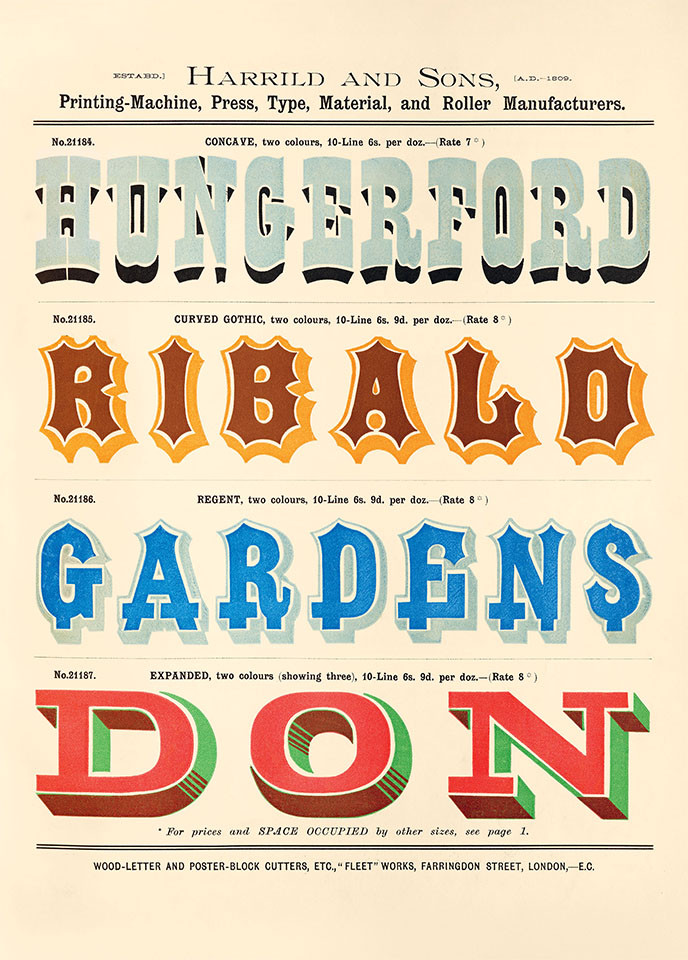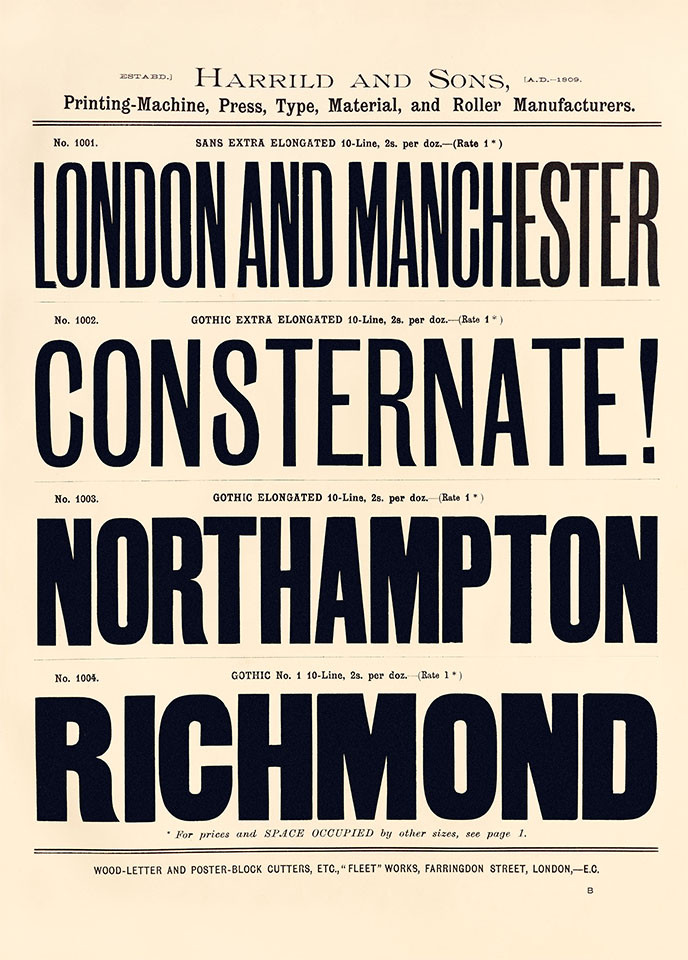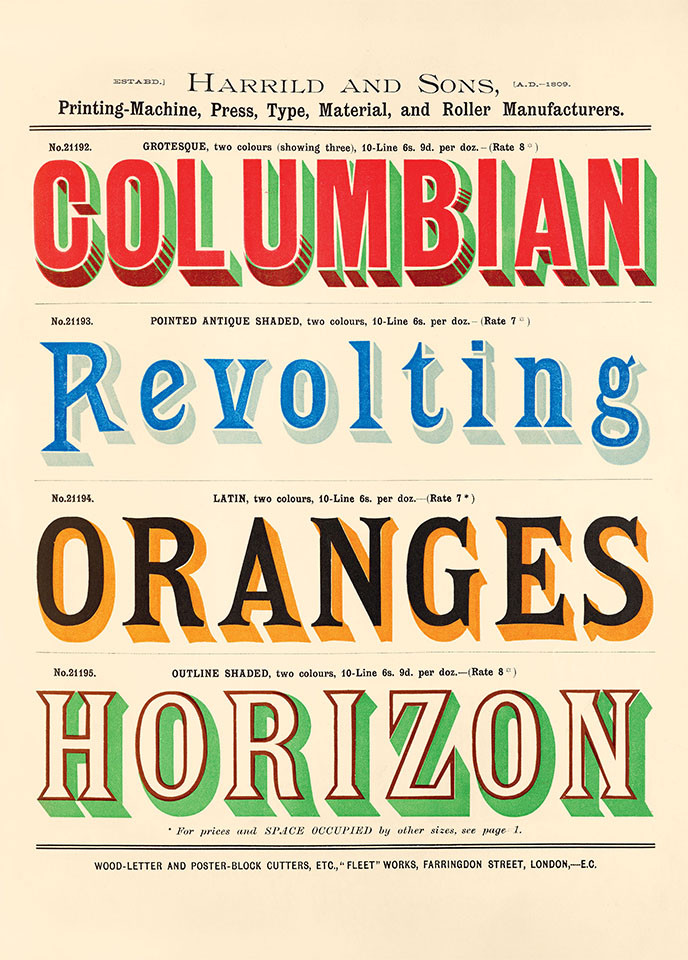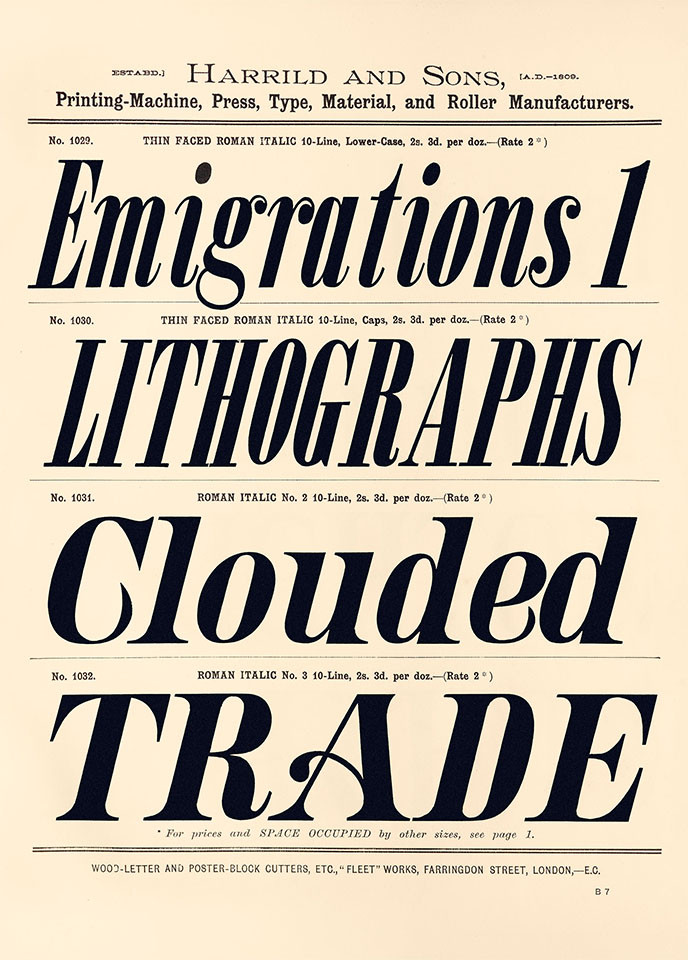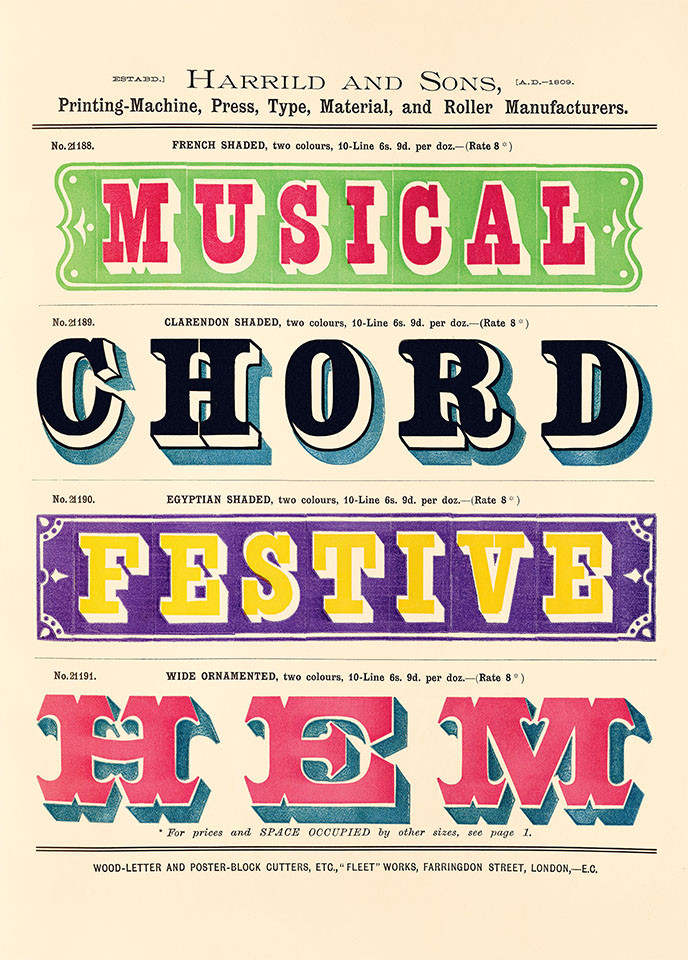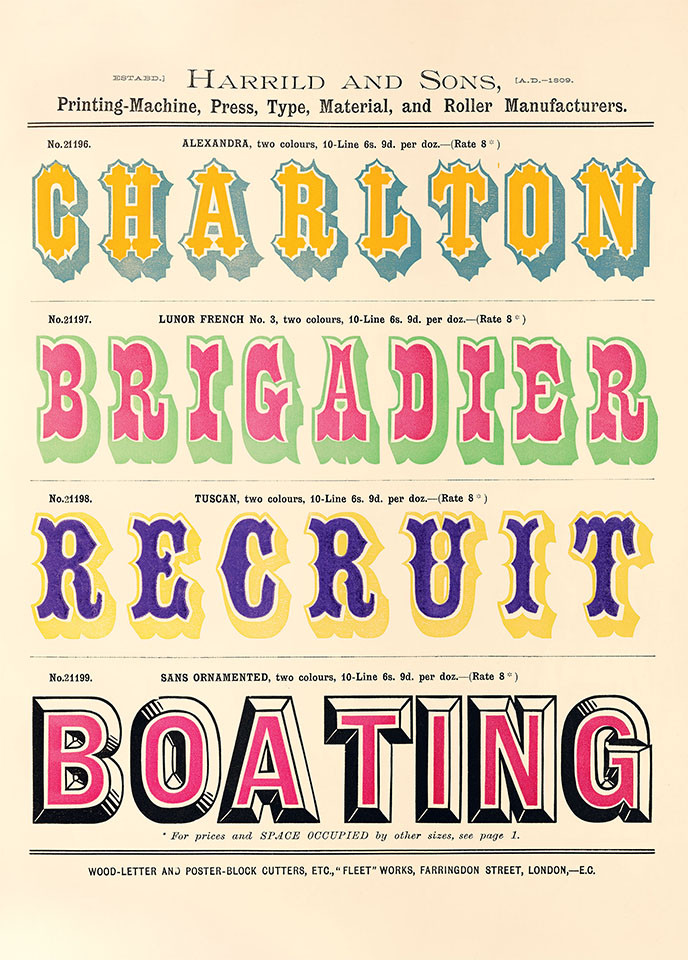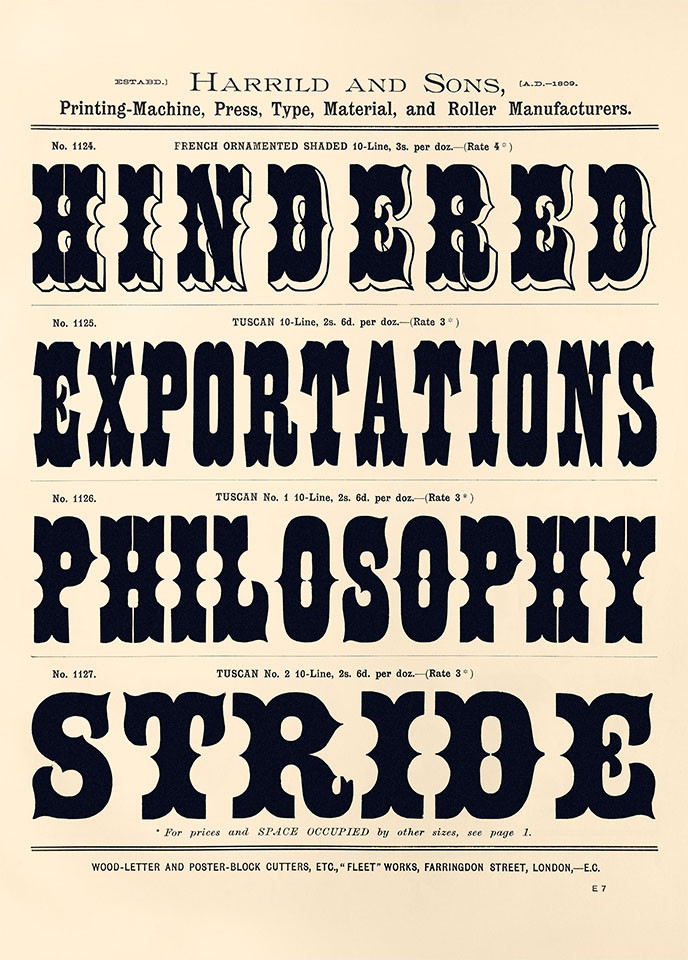
16 oversize sheets featuring the bold letters and vibrant colors designed to captivate audiences near and far
In the 1800s, as people migrated to urban centers, and the walls of the city increasingly became a surface for printed broadsides and posters, wood type emerged as a splendid and economical tool in the creation of large-scale advertisements. Lighter in weight and less cumbersome than metal, it was quickly available in an explosion of expressive styles.
Wood Type Creative Papers gathers sixteen distinctive designs from a nineteenth-century catalog by noted purveyors of letterpress machinery Harrild & Sons. These oversize perforated sheets offer dynamic black-and-white typography, astonishing decorative fonts, and vivid chromatic letterforms, attesting to wood type’s rich and enduring appeal.
About Harrild & Sons
Founded in 1809 by Robert Harrild (1780-1853), Harrild & Sons became one of London's premier manufacturers of printing equipment. They also provided the market with stylish wooden letters, as shown in the remarkable late nineteenth-century type specimen catalog featured in this volume.